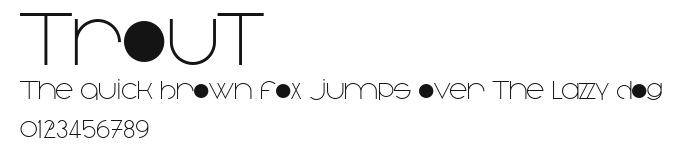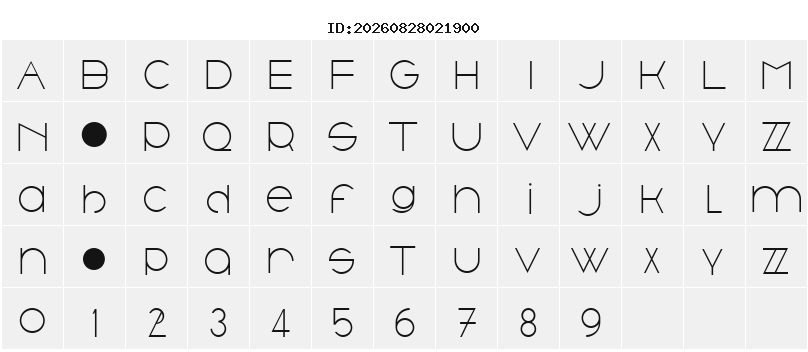
• Font Name: Trout
• Full Font Name: Trout
• Designer: paintblack
• Manufacturer: paintblack
About Trout.ttf
Trout.ttf is a modern, elegant sans-serif font designed for ultimate readability and visual harmony. Perfect for branding, headlines, web design, and print materials.